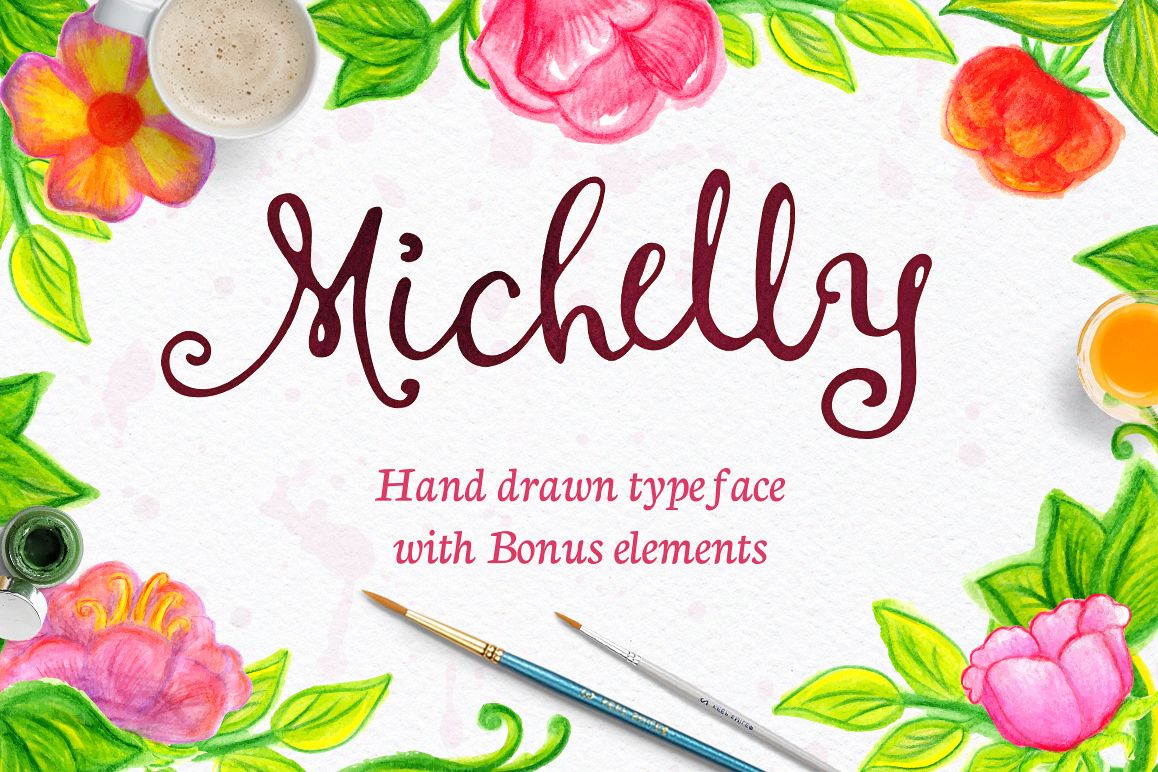
Michelly typeface with elements!
Michelly
Michelly - Romantic font! He can make good cards, wedding invitations, arrange illustration. It is beautiful as lettering. I made this font for your artwork! It has upper and lower case letters, numbers, special characters and accents. And as ligatures.You will receive the fonts: